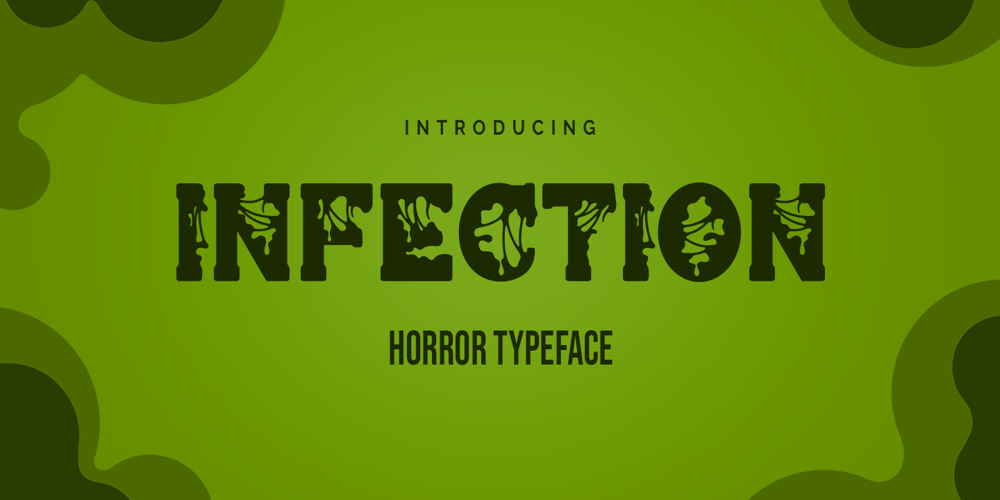
Infection
Infection font
Infection Font Family was designed by RoninDesign and published by Ronin Design. Infection contains 1 styles and family package options. Infection is a horror and halloween font. Designed with a zombie virus touch will give a creepy impression, This font is ideal for labels, posters, or pretty much anything else that requires a creepy touch.